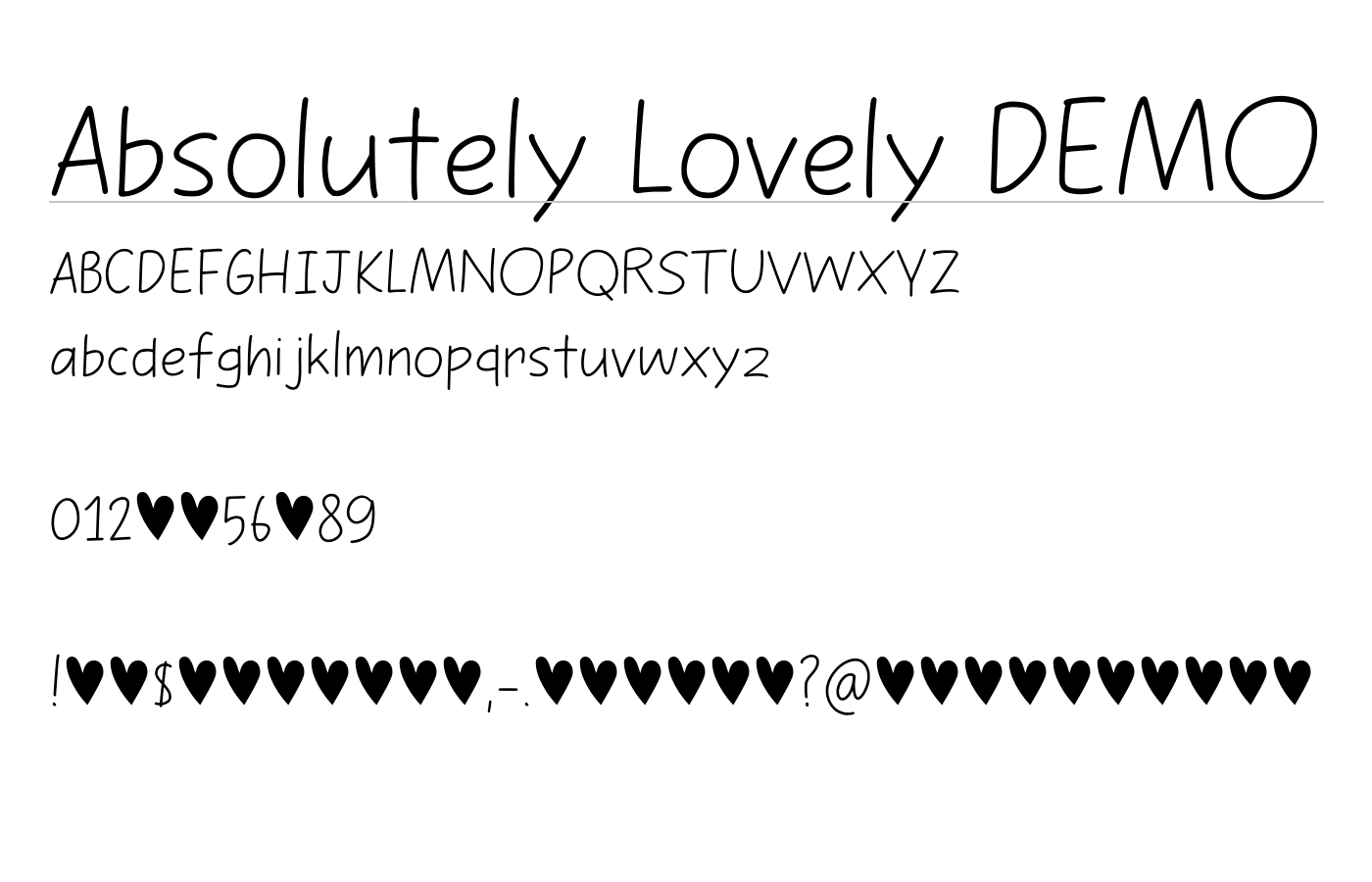
Absolutely Lovely DEMO is a playful, handwritten sans serif font with a casual, whimsical charm. Its thin strokes and slightly irregular letterforms give it a light, airy feel, making it perfect for informal designs that want to convey warmth and friendliness. This font works well for greeting cards, children's books, invitations, and creative branding where a personal, approachable touch is desired.
Absolutely Lovely DEMO Font
About Absolutely Lovely DEMO Font